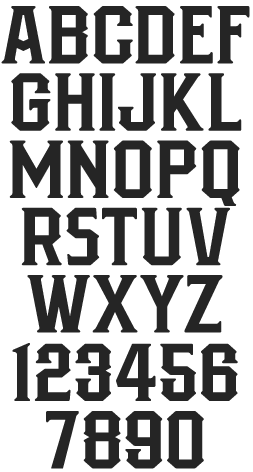
LHF State Street A popular style used by sign painters in the early
1900's (in particular Rawson & Evans sign company). Slightly rounded
corners make it easy to outline.